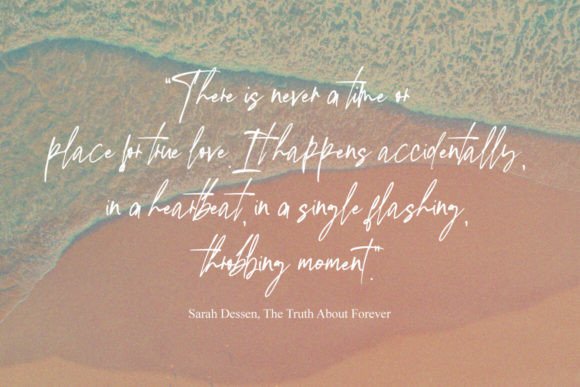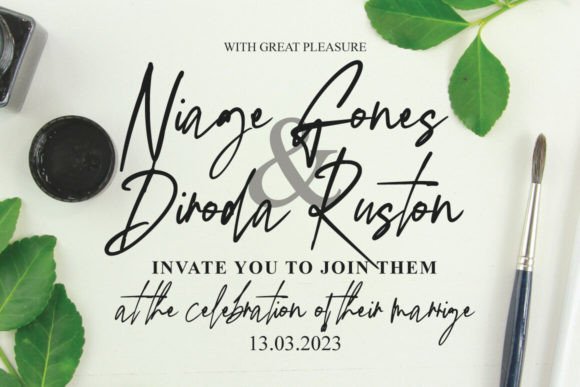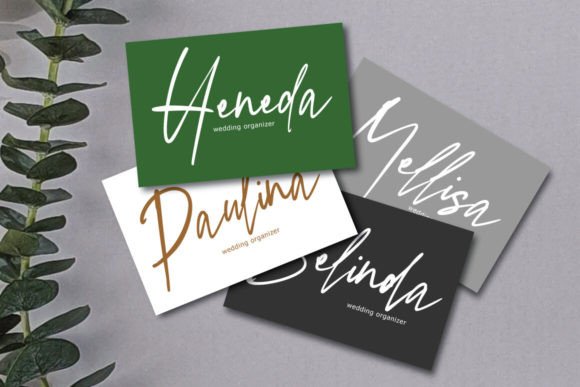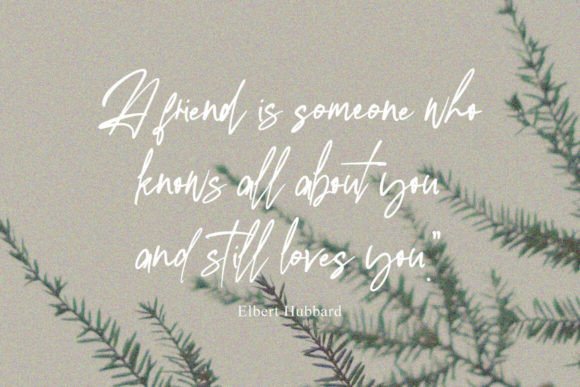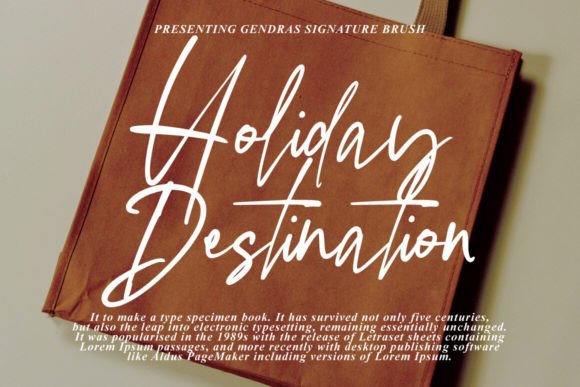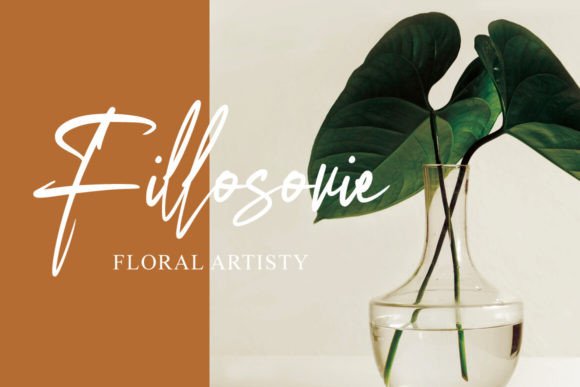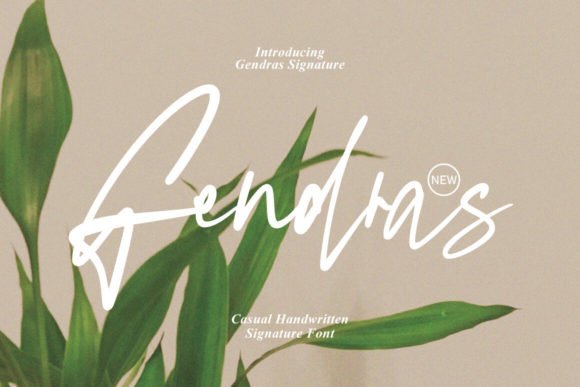
Gendras Font: Elevate Your Designs with a Handmade Signature Style
Are you looking for a font that can add a touch of elegance and sophistication to your designs? Look no further than Gendras Font, a beautiful handmade signature style font that is perfect for creating stunning invitations, greeting cards, branding materials, business cards, quotes, posters, and more.
What Makes Gendras Font So Special?
Gendras Font is a decorative font that features a dancing baseline, giving it a unique and eye-catching look. The font comes with over 200 glyphs, including alternative characters that can be accessed using Open Type features such as Swash, Stylistic Sets, Stylistic Alternates, and Ligature. This means that you can create a wide range of designs, from simple and elegant to complex and ornate.
Open Type Features: Unlock Endless Design Possibilities
One of the standout features of Gendras Font is its Open Type features. These features allow you to access a wide range of alternative characters, including swashes, stylistic sets, and ligatures. This means that you can customize your designs to suit your needs, creating unique and eye-catching text that sets your designs apart.
PUA Unicode: Easy Access to Alternate Characters
Gendras Font is perfect for designers and crafters who want to add a touch of elegance and sophistication to their designs. Whether you’re creating invitations, greeting cards, or branding materials, this font is sure to impress. The handmade signature style gives your designs a personal touch, making them stand out from the crowd.
With Gendras Font, the design possibilities are endless. Here are just a few ideas to get you started:
- Create stunning invitations for weddings, birthdays, and other special occasions
- Design beautiful greeting cards for holidays and special events
- Develop branding materials that showcase your company’s personality and style
- Create eye-catching posters and flyers that grab attention
- Design elegant business cards that make a lasting impression
In conclusion, Gendras Font is a beautiful handmade signature style font that is perfect for designers and crafters who want to add a touch of elegance and sophistication to their designs. With its Open Type features, PUA unicode, and dancing baseline, this font is sure to impress. Whether you’re creating invitations, greeting cards, or branding materials, Gendras Font is the perfect choice.